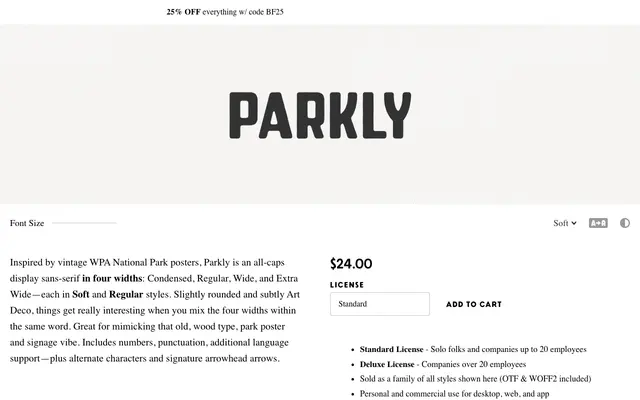
An all-caps display sans in four widths, drawn from WPA National Park poster lettering with a slight Art Deco roundness.
Eight styles cover four widths from Condensed to Extra Wide, each available in Regular and Soft variants with subtly rounded terminals. The family is intended for mixing widths within a single word, replicating the look of vintage wood-type park posters and signage. Alternate characters, arrowhead glyphs and extended Latin support broaden its utility for heritage-themed identity and editorial work.
An all-caps display sans-serif with Art Deco and WPA poster influences, designed exclusively for headline and signage use across four width variants.